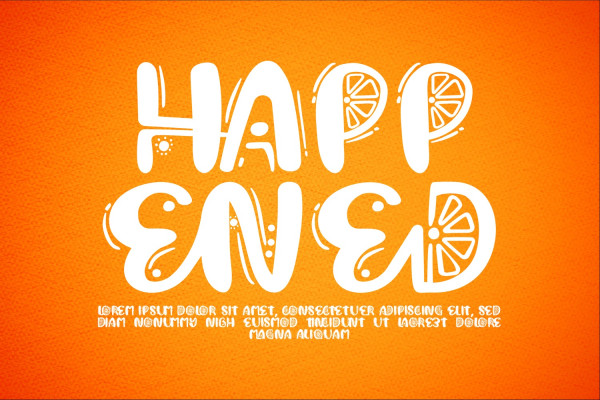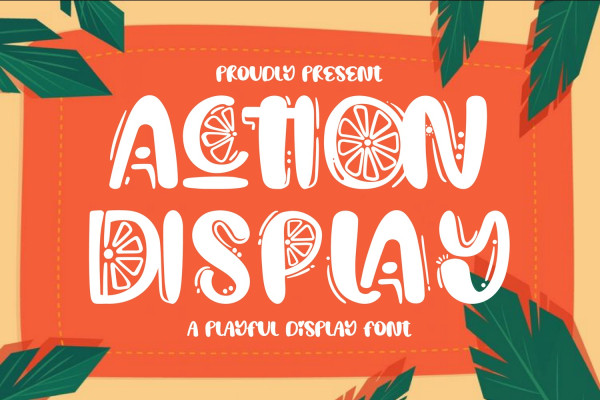
Action Display Font
Action Display Font is a playful decorative display font inspired by doodle style and hand-drawn lettering designed in fruit style. and gives a feeling of freshness in summer. It will add an incredibly joyful touch to your designs. Add this beautiful display font to each of your creative ideas and notice how it makes them stand out!
Action Display was built with OpenType features and includes 100 ligatures, alternate, numbers, punctuation, and it also supports other languages.